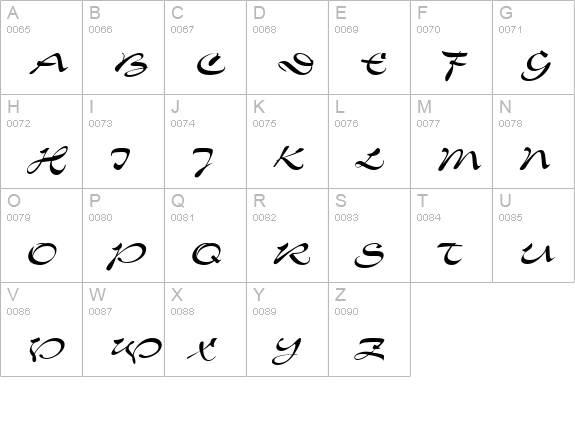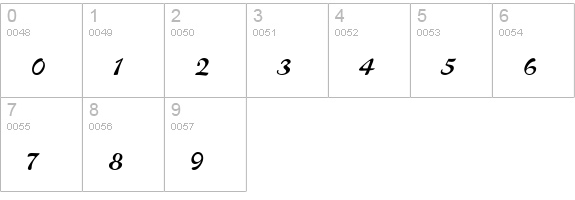
Shogun Font Details
Shogun font is a stunning display typeface that captures the essence of traditional Japanese calligraphy with a modern twist. It is a perfect choice for adding a touch of elegance and sophistication to any design project. With its bold and dramatic strokes, Shogun font demands attention and commands authority. This font is not only visually captivating but also incredibly versatile. It can be used for a wide range of design purposes, from headlines and logos to posters and packaging. Whether you are creating a bold and impactful advertisement or a minimalist and refined invitation, Shogun font will elevate your design to the next level. One of the best things about Shogun font is that it is freely available to download at FontsMarket.com. This means that you can easily access and use this exquisite typeface without any cost. It's a fantastic opportunity to enhance your design projects without breaking the bank. Furthermore, Shogun font offers a comprehensive character set, including uppercase and lowercase letters, numbers, punctuation marks, and special characters. This extensive range ensures that you have all the tools you need to bring your creative vision to life. In addition to its aesthetic appeal and versatility, Shogun font is also highly legible, making it perfect for both print and digital designs. Its clean and well-defined letterforms ensure that your message is easily readable, even at small sizes or on screens. Overall, Shogun font is a must-have for any designer who wants to make a statement with their typography. Its striking appearance, versatility, and legibility make it a valuable asset for both personal and commercial projects. Don't miss the opportunity to download this incredible font for free at FontsMarket.com and take your designs to new heights.